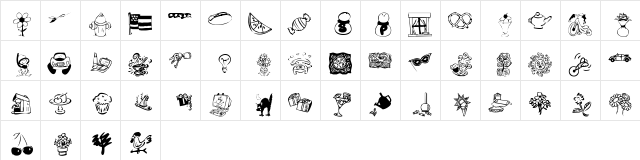
KR Katlings Three Regular
Design Context for KR Katlings Three Typeface
KR Katlings Three is a composed and adaptable typeface that performs quietly and consistently across a wide range of design contexts.